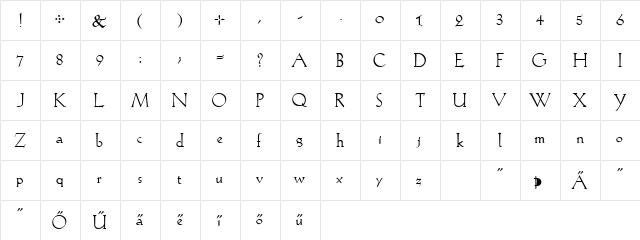
Koch Plain Plain Font Preview
Koch Plain Plain
Design Context for Koch Plain Typeface
Koch Plain offers clean, dependable letterforms without strong stylistic allegiance, making it a practical choice for designers who need flexibility.
Pro Tip: Pair Koch Plain with a font of contrasting weight or personality to build a more expressive typographic hierarchy.